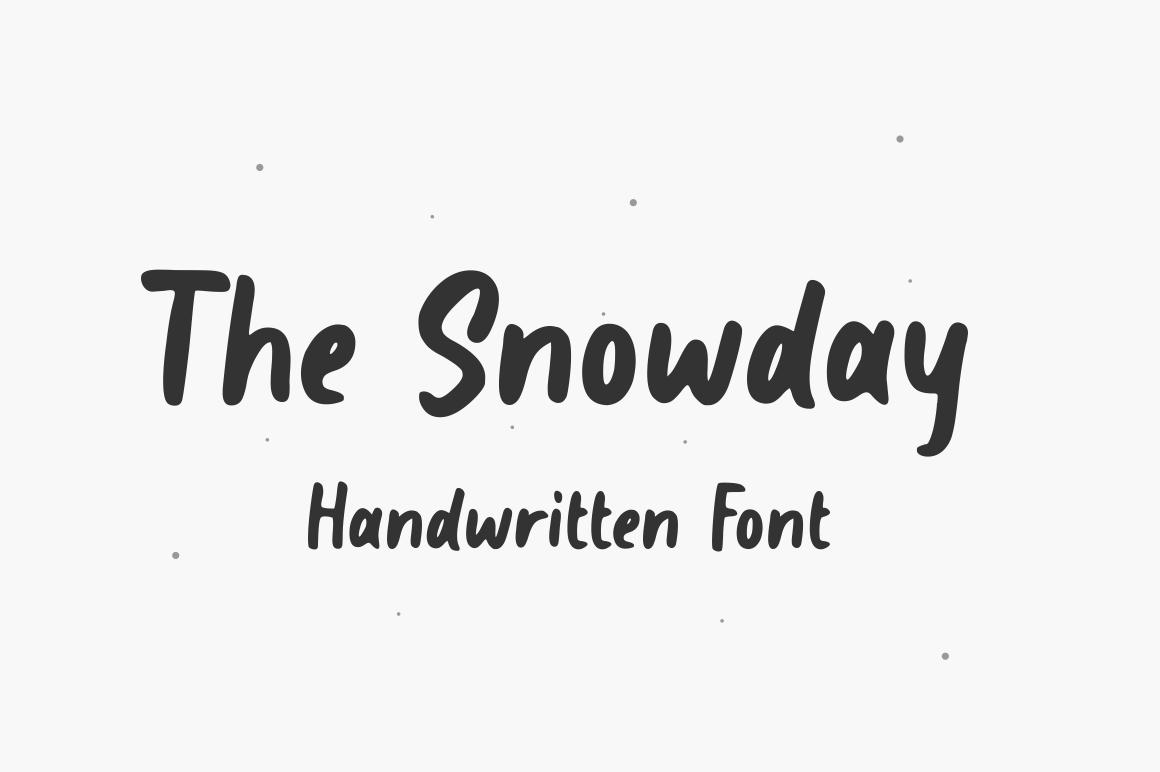
The Snowday Font Description
The Snowday is a simple and sweet paint brushed handwritten font. It has beautiful and well balanced characters and as a result, it matches a wide pool of designs. Add it to your most creative ideas and notice how it makes them come alive!